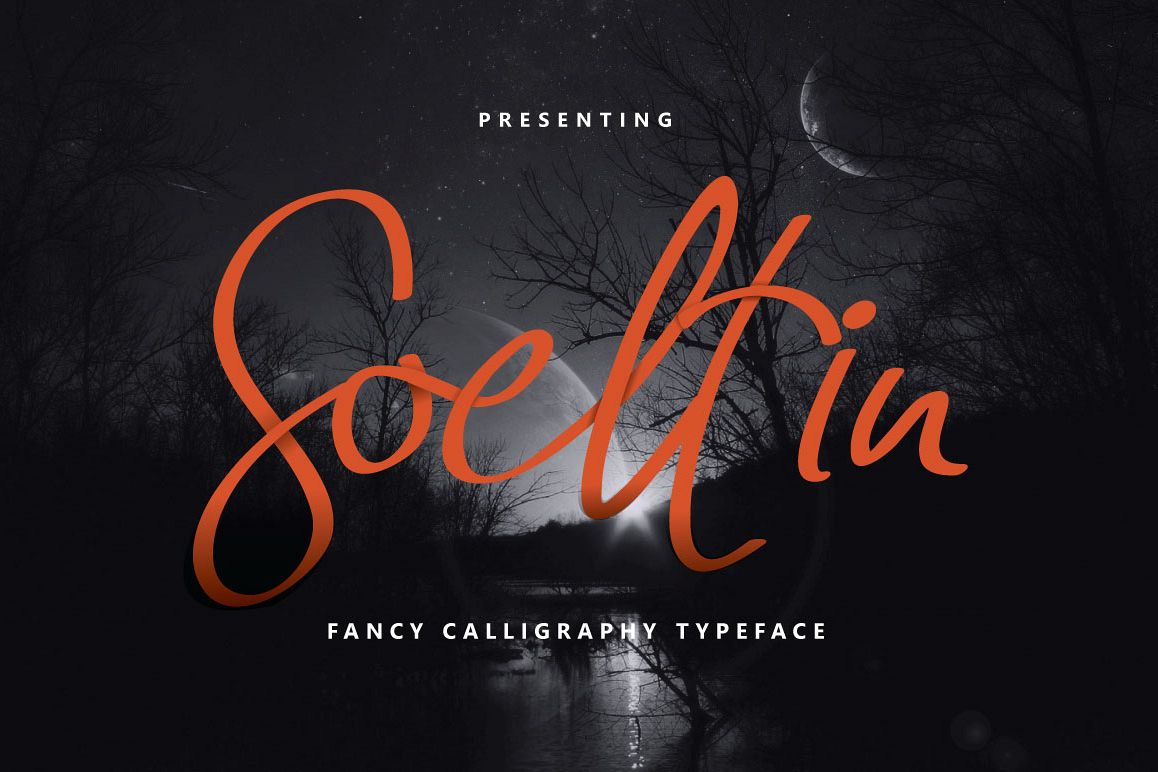
Soeltin is a bouncy imperfect calligraphy
typeface crafted from contemporary calligraphy pen to guarantee you in creating
attractive hand-made typography within a second. ;) Use Soeltin to help you
create custom hand-lettering with the look of lively hand lettering with lot of
style through Soeltin Extras
Handwritten contemporary calligraphy with lot of
ligatures via Soeltin Extras option which allow you to create different feels
for different projects and create more natural look between every characters.
Try switching between the regular and extras characters to get the best design
for your text.
Soeltin script is perfect for logos, websites,
invitations, greeting cards, magazines, business cards, packaging and many
more! Be a perfect professional in a minute and start creating modern designs.